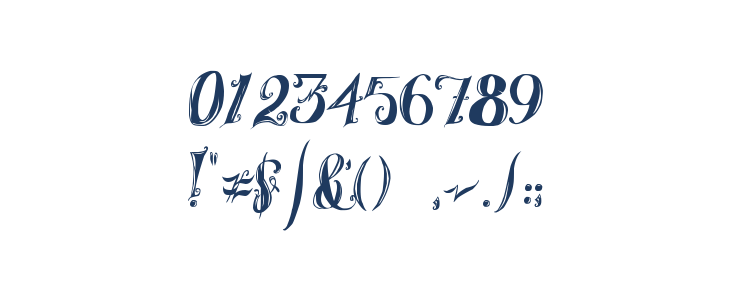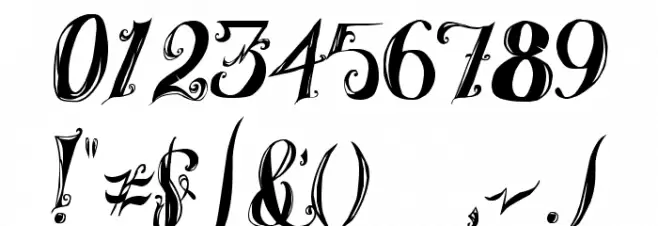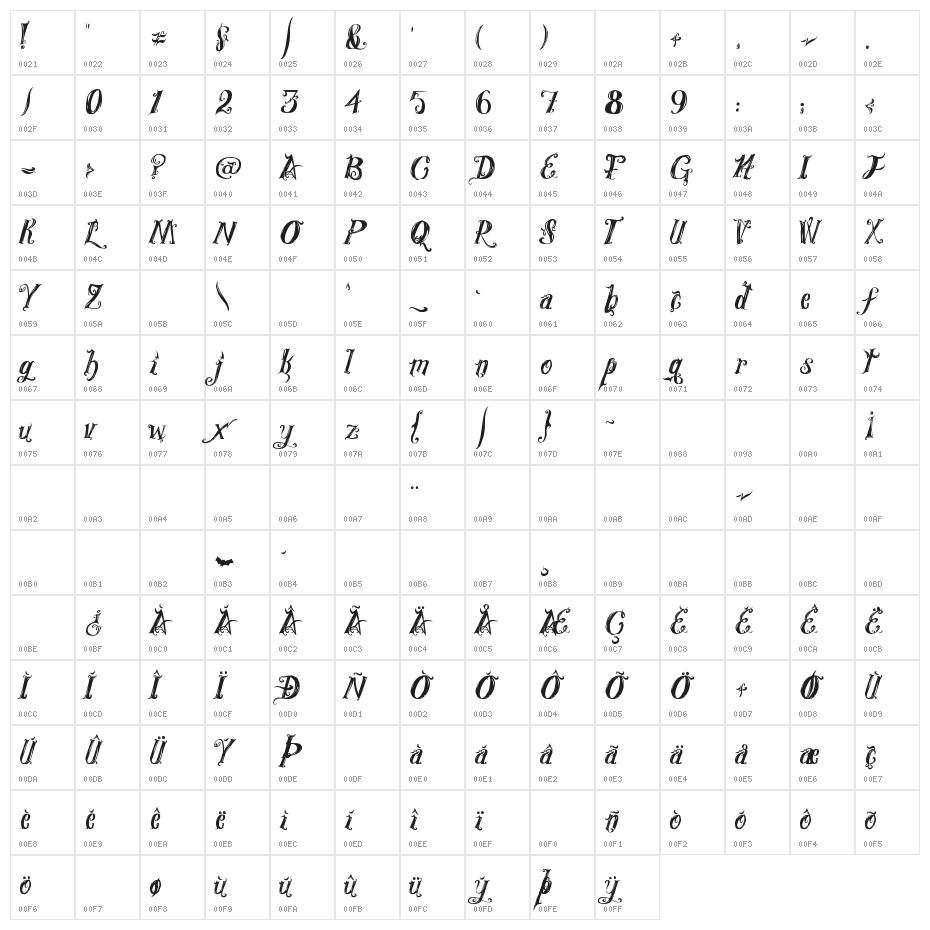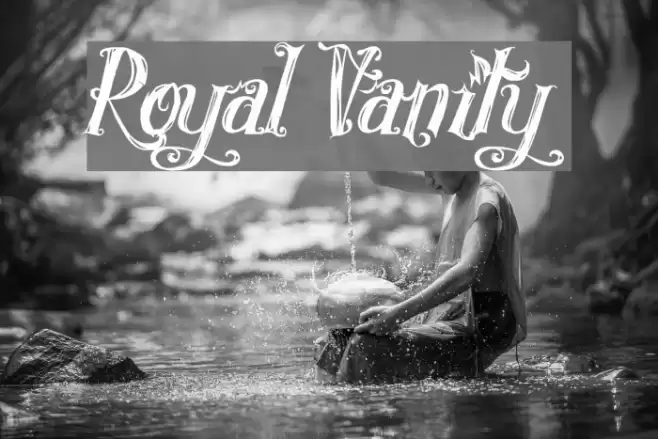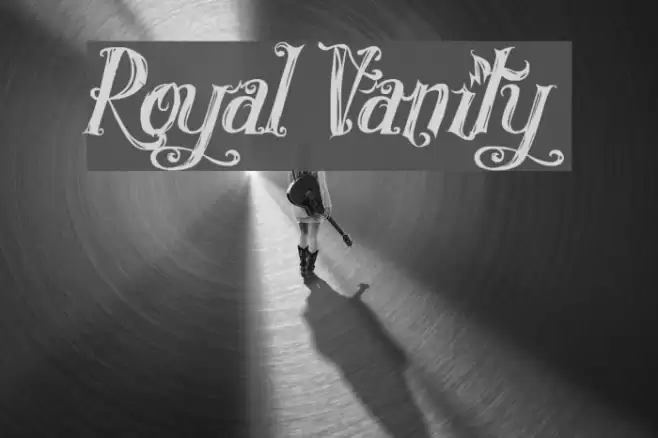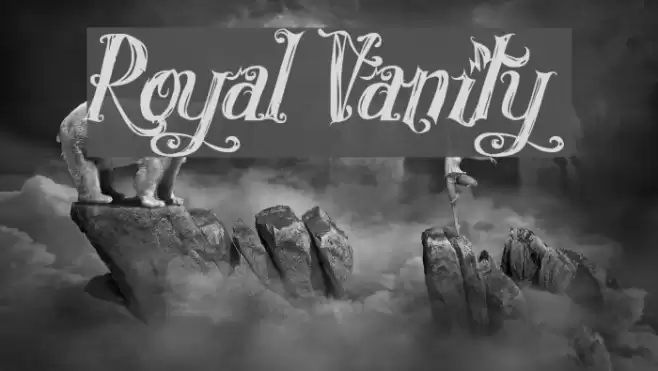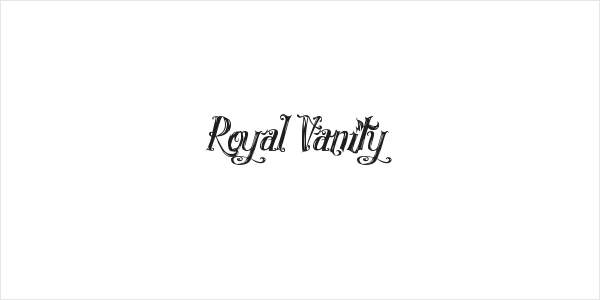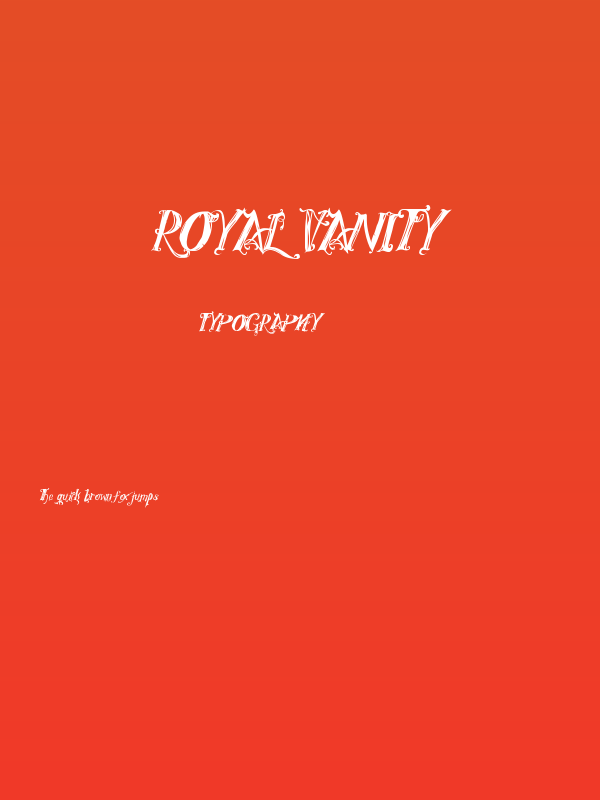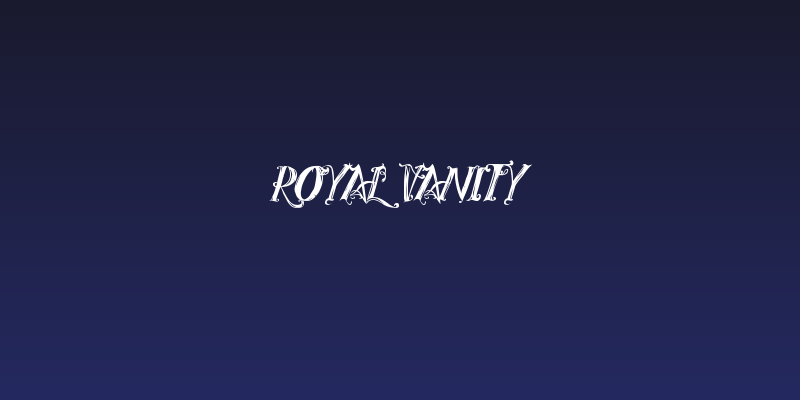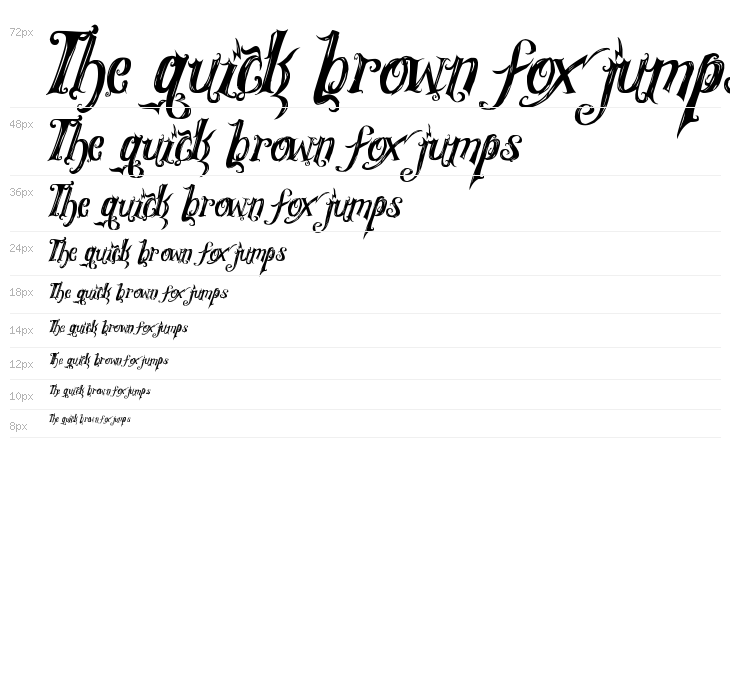
Royal Vanity Font
Royal Vanity Description
This font exhibits a highly decorative and ornate style, characterized by its elaborate swirls and flourishes extending from each letter. The uppercase letters are particularly intricate, with exaggerated serifs and embellishments that give them a regal and luxurious appearance. The lowercase letters maintain a similar level of detail, ensuring consistency throughout the typeface. The numbers and special characters are equally ornate, making this font suitable for projects that require a touch of elegance and sophistication. The overall design is reminiscent of vintage calligraphy, with a modern twist that makes it stand out.
| Overall Style | Vintage, Decorative |
| Proposed Projects | Ideal for wedding invitations, luxury branding, high-end product packaging, and decorative headlines. |